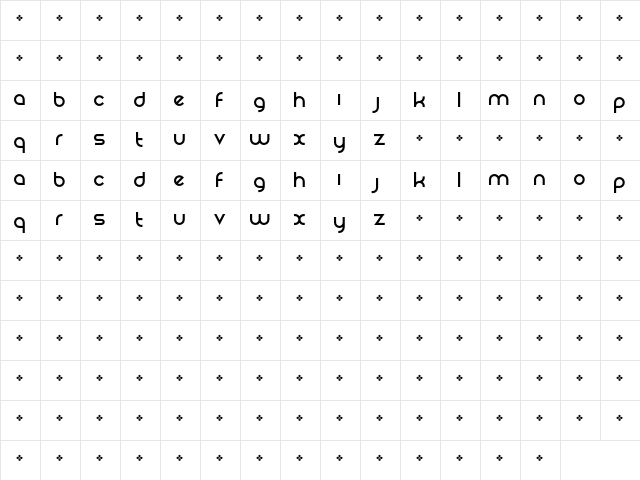
Rezland Regular
| Foundry | Fraser Davidson |
Design Context for Rezland Typeface
Rezland takes a measured approach to typography — its balanced proportions and neutral character make it a reliable workhorse for both digital and print work.